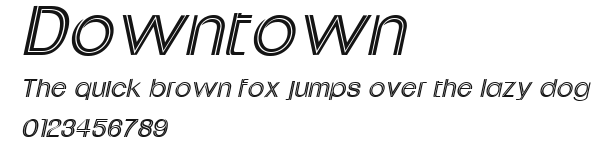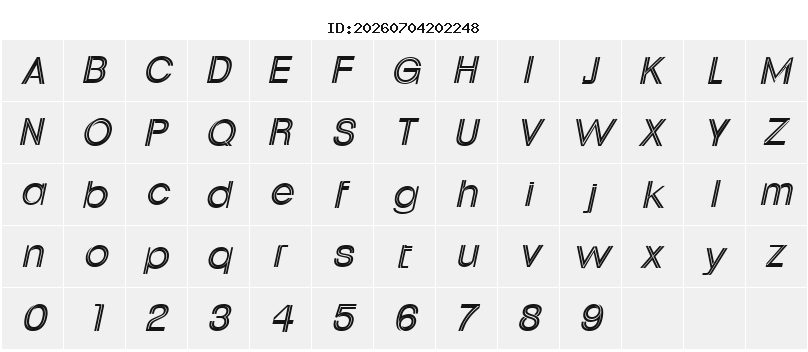
• Font Name: Downtown
• Full Font Name: Downtown Italic
About Downtown.ttf
Downtown.ttf is a modern, elegant sans-serif font designed for ultimate readability and visual harmony. Perfect for branding, headlines, web design, and print materials.